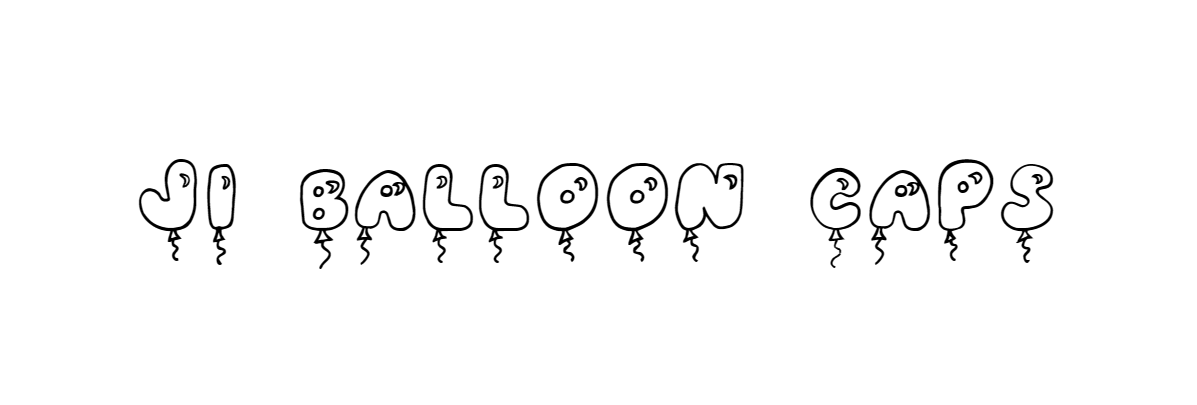
JI Balloon Caps
JI Balloon Caps is a fancy font created by Jeri Ingalls (2001). It's a decorative display font with plenty of personality, made to grab attention. It's a free download, and you can try it with your own text in the preview above first.
JI Balloon Caps has the full alphabet in upper and lowercase. There are no numbers, so you'll need a second font for dates, prices or phone numbers. Punctuation is limited, so look at the character map if you need a specific symbol. There are no accented letters like é or ñ, so it's best kept to English text.
Think of JI Balloon Caps for posters, logos and eye-catching headlines. The file has no kerning data, so in logos and big titles check pairs like AV, To and Wa and tighten the spacing by hand. Use it for one standout word or headline and let simpler fonts handle the rest.